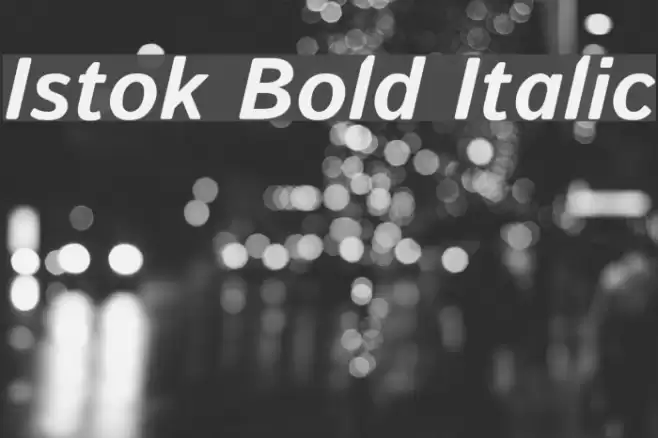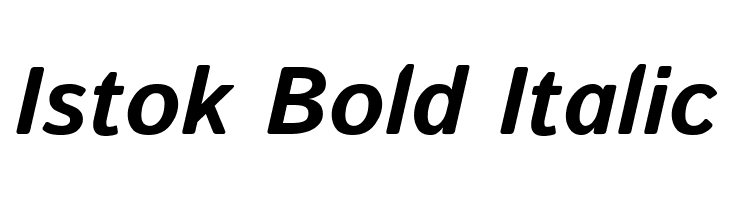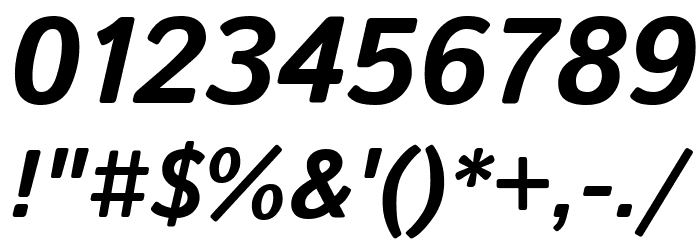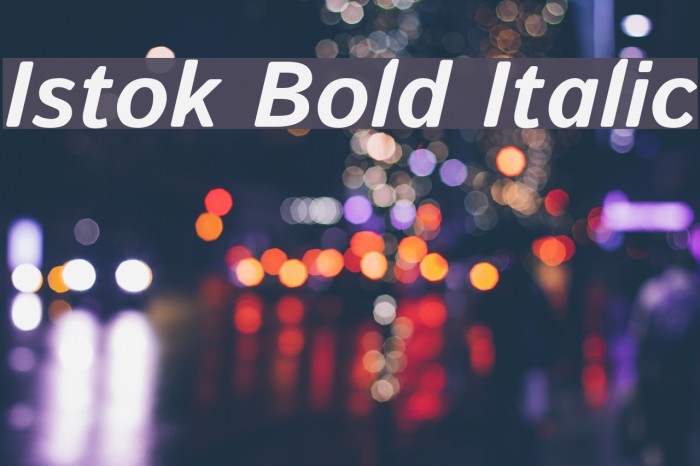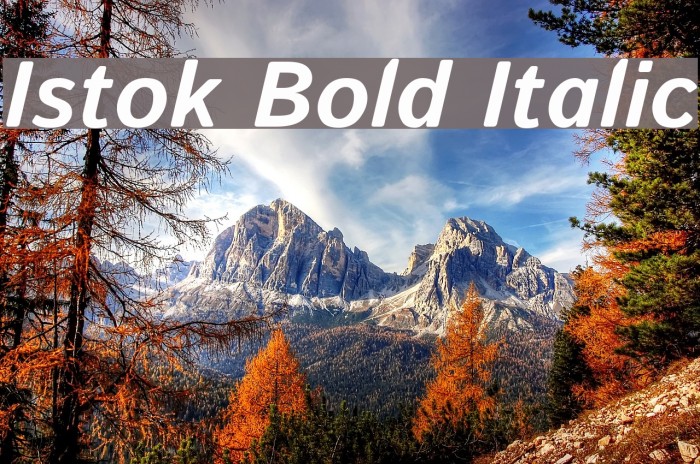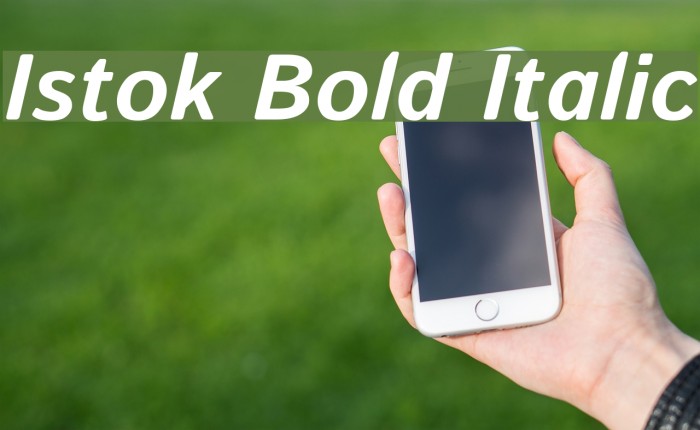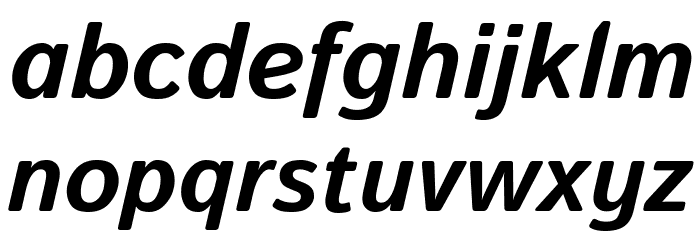
Istok Bold Italic Font
Istok Bold Italic Description
This font exhibits a clean and modern sans-serif style with a bold and italicized appearance. The characters are slightly slanted, giving a dynamic and forward-moving feel. The strokes are consistent in thickness, providing a uniform look across all characters. The uppercase and lowercase letters maintain a balanced proportion, ensuring readability. The numerals are clear and distinct, making them suitable for various applications. Special characters are well-defined, adding versatility to the font's usage.
A bold, italicized sans-serif font with a modern and dynamic style from Uncategorized fonts.